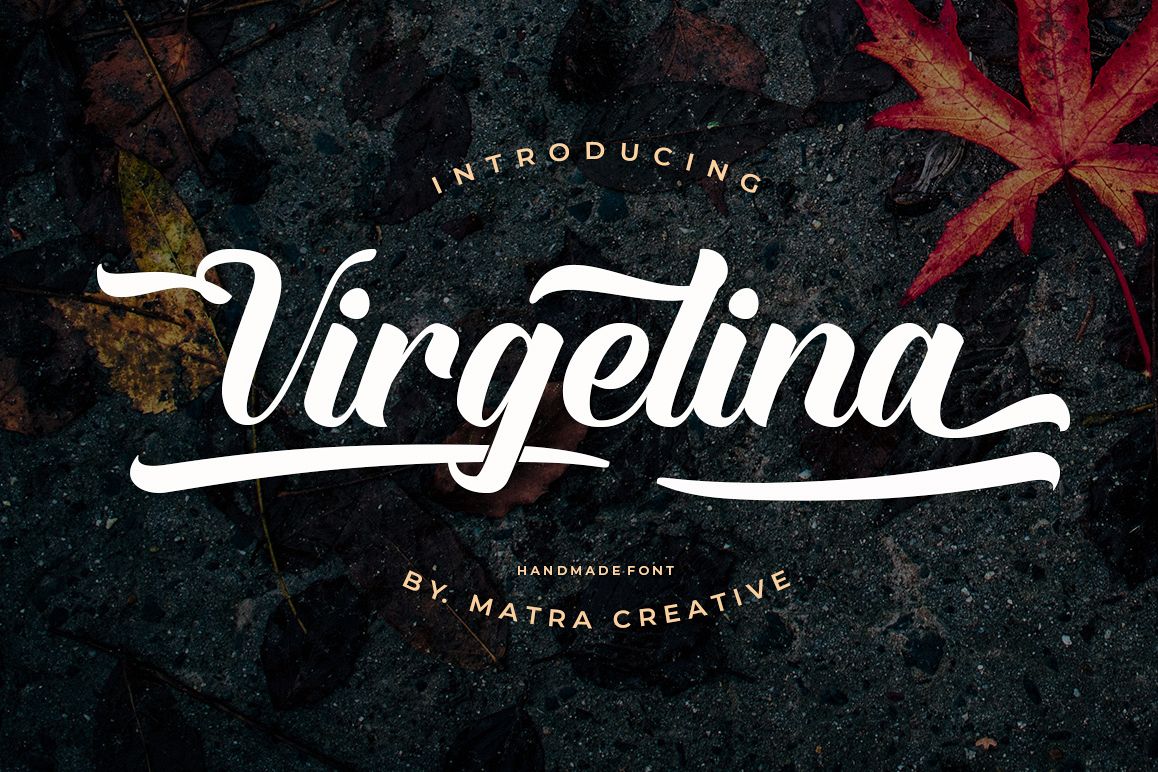
Virgelina
Virgelina- Handwritten Font has lots of alternates that gives you possibility to build your text almost like handwriting with all the charming imperfections and variations that a real handwriting has. Virgelina will work perfectly for fashion, e-commerce brands, trend blogs, wedding boutiques or any business that wants to appear upscale and chic.